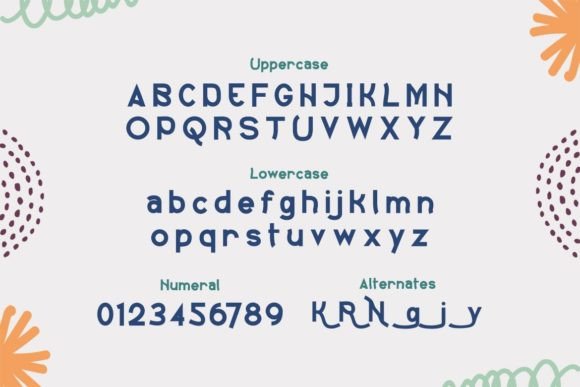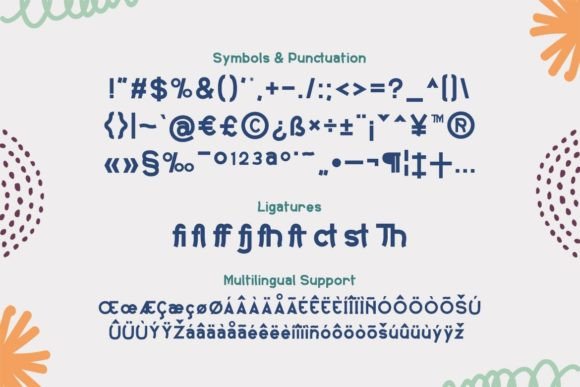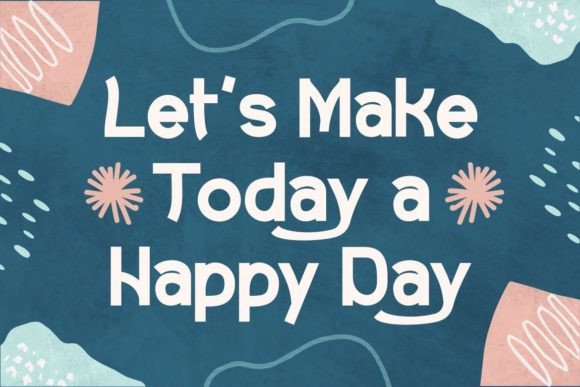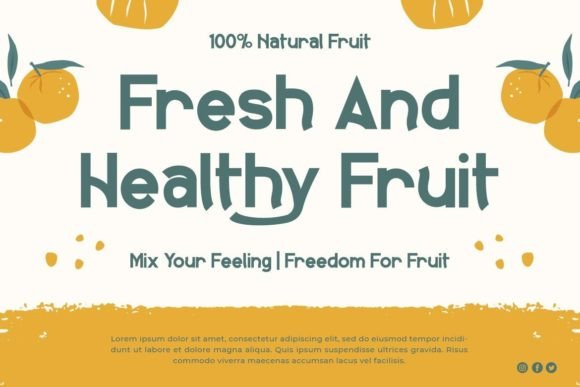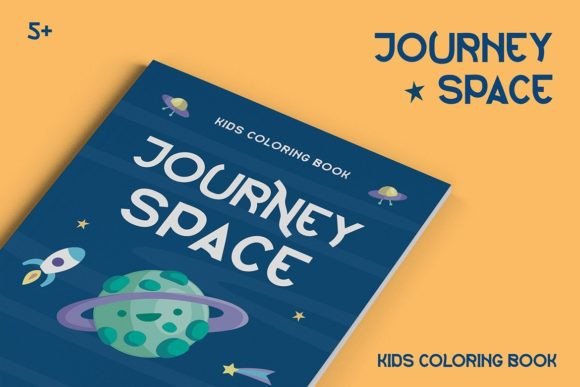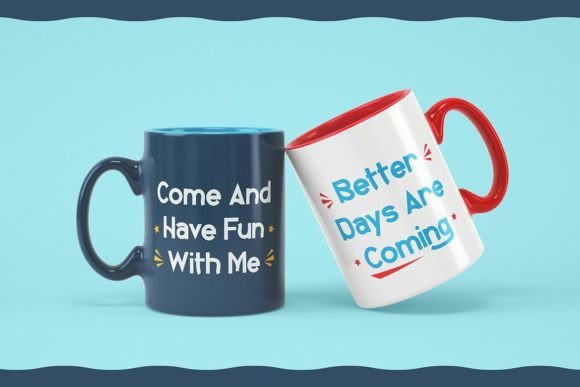
Introduction to Kisteria Font
Have you ever stared at a blank page, pen in hand, waiting for inspiration to strike? That’s exactly where I was when I stumbled upon the Kisteria Font. Its playful, handwritten charm immediately captured my attention, and I knew I had to learn more. This font is more than just a design element – it’s a key to unlocking a world of creative possibilities.
As a designer, I’m always on the lookout for high-quality resources that can elevate my projects. The Kisteria Font is a valuable addition to any design arsenal, offering a unique and eye-catching aesthetic that’s perfect for kids-themed designs. From coloring books to birthday invitations, this font is sure to make your creative project stand out. And the best part? It’s available for free download, making it an accessible design resource for designers of all levels.
Honest Review: Kisteria Font
I recently had the chance to work with the Kisteria Font, and I must say it’s been a great addition to my design resources. As a designer, I’m always on the lookout for high-quality fonts that can elevate my creative projects. The Kisteria Font definitely delivers.
- ✨ Beautiful, elegant design: The font has a unique and sophisticated look that’s perfect for any design project.
- ✨ High-quality vector graphics: The font’s vector graphics are crisp and clear, making it easy to work with even at large sizes.
- ✨ Transparent background: This feature allows for seamless integration with any background image or color, giving you more design flexibility.
However, I did encounter a few limitations with the Kisteria Font.
- ⚠️ Limited language support: While the font is great for English and other Latin-based languages, it may not be suitable for languages that require more complex character sets.
- ⚠️ No bold or italic styles: While the font’s regular style is great, the lack of bold or italic options can be limiting for some design projects.
Overall, I’m impressed with the Kisteria Font. Its high quality and elegant design make it a valuable addition to any designer’s toolkit. While it may have a few limitations, it’s definitely worth considering for your next creative project. And the best part? It’s available for free download, making it an even more attractive option for designers on a budget.
Tips for Getting the Most Out of Kisteria Font
To get the most out of Kisteria Font, use it with a transparent background to create a modern and sleek design. You can also pair it with other high-quality design resources to create a unique and eye-catching look.
Common Use Cases for Kisteria Font
Kisteria Font is perfect for designing logos, business cards, and other marketing materials. It’s also great for creating social media graphics, posters, and other visual content.